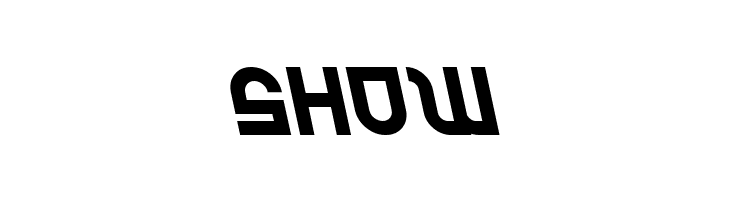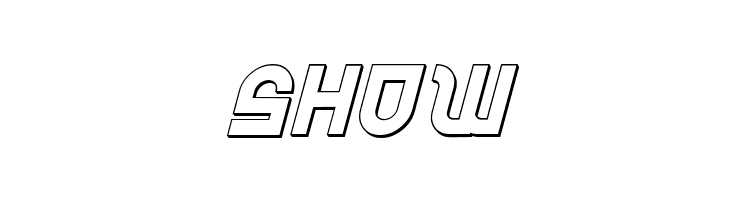
Dickcissel Font
- Font: Dickcissel
A bold, expanded, and italicized font with a futuristic and dynamic style.
A bold, futuristic font with geometric shapes and a three-dimensional outline.
A bold, futuristic font with geometric and angular design.
A futuristic 3D italic font with bold, geometric outlines.
A bold, futuristic font with geometric shapes and expanded width.
A bold, futuristic font with geometric shapes and dynamic style.
A bold, futuristic font with geometric outlines and a modern aesthetic.